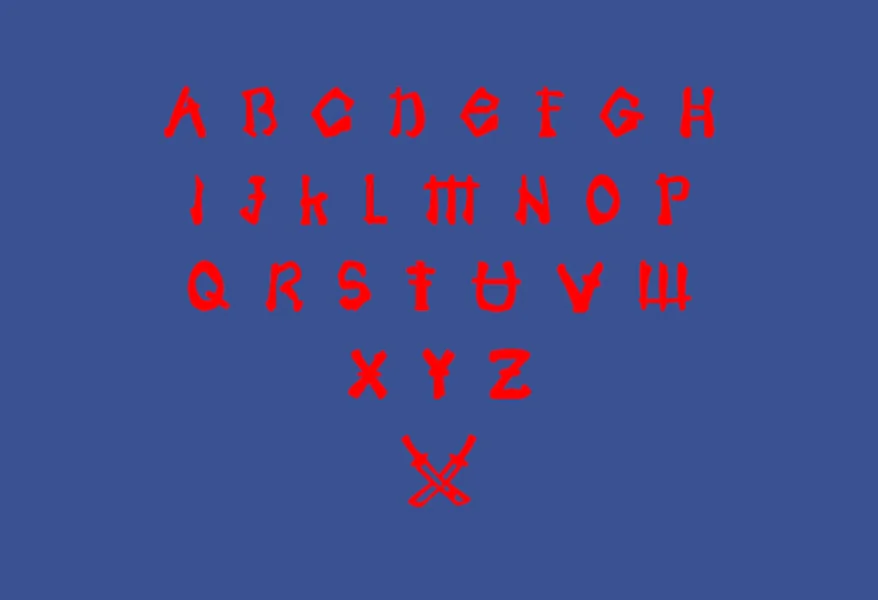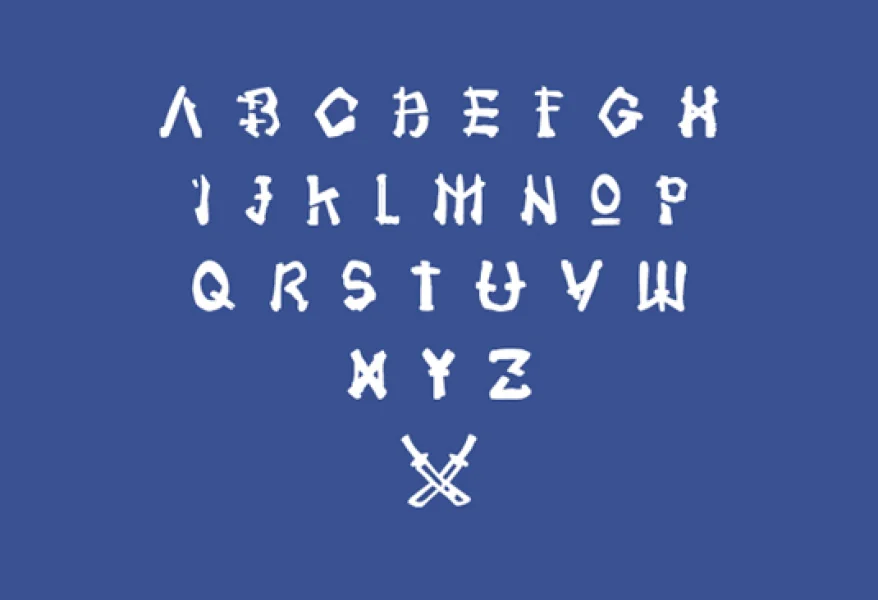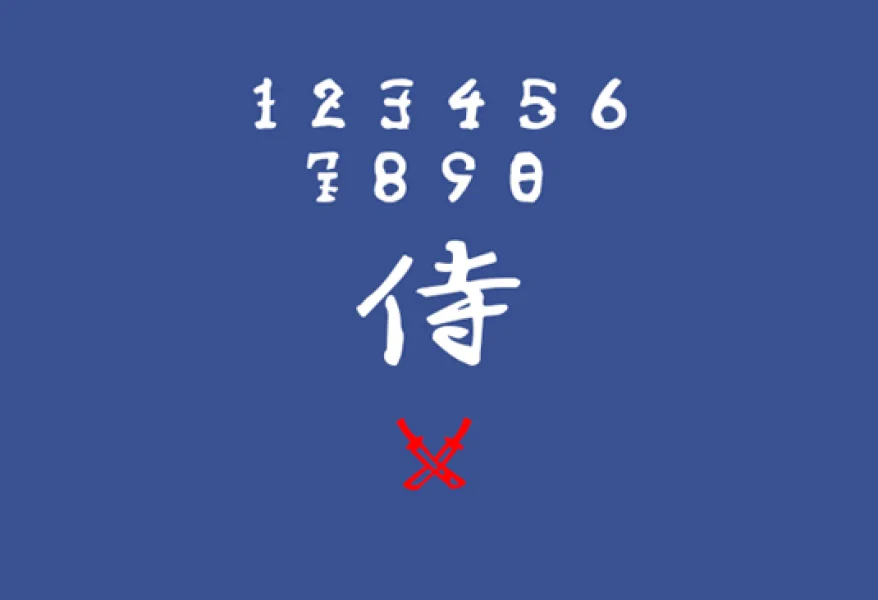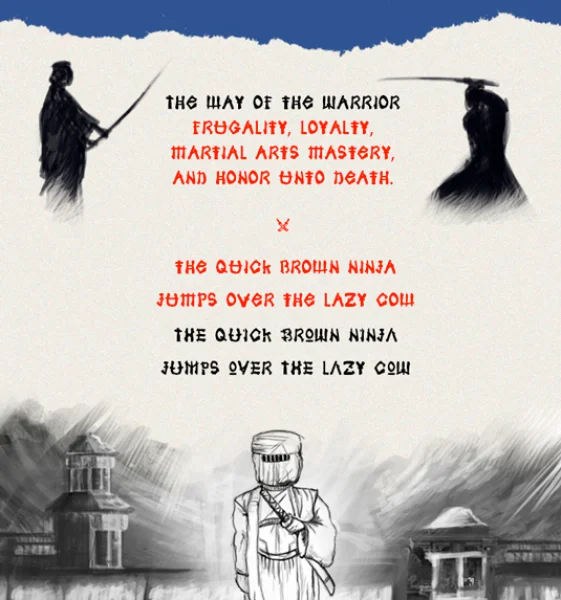
Samoerai is a unique, uppercase display font inspired by Japanese and Chinese culture. It started out as a litle experiment wint the use of handwritten characters in Photoshop, but quickly escalated in a complete, special font. It contains a double alphabet with alternative characters, also including some special Glyphs.